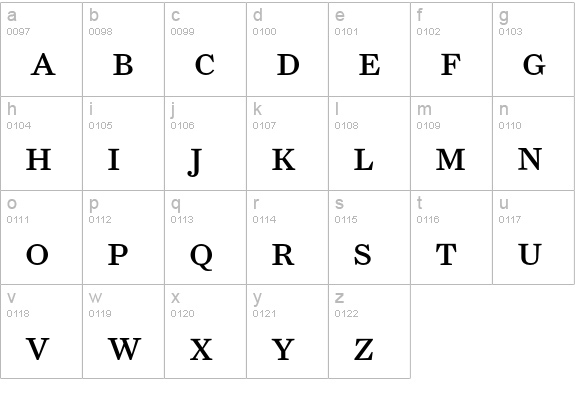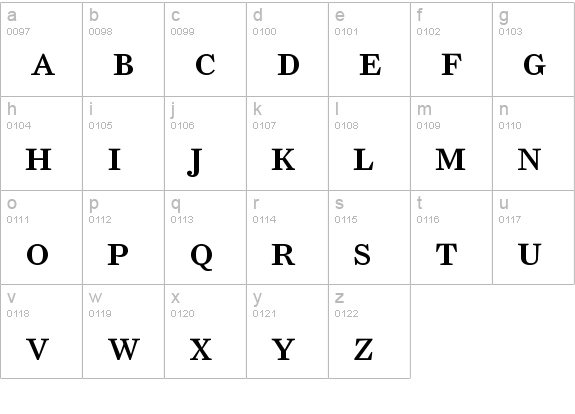
FarnhamText-RegularSC Font Details
FarnhamText-RegularSC is a stylish and versatile font that exudes elegance and sophistication. With its slender and graceful letterforms, this typeface strikes the perfect balance between traditional and modern design elements. Its subtle curves and delicate serifs add a touch of sophistication to any project, making it an ideal choice for a wide range of applications. This font is perfect for creating elegant invitations, sophisticated branding materials, or refined editorial layouts. Whether you're designing a wedding invitation, a luxury magazine spread, or a high-end logo, FarnhamText-RegularSC will elevate your designs to new heights. Best of all, FarnhamText-RegularSC is available for free download at FontsMarket.com. This means you can access this exquisite font without any cost, making it a valuable addition to your font library. Don't miss out on the opportunity to enhance your projects with the timeless beauty of FarnhamText-RegularSC. Download it today and bring a touch of elegance to your designs.